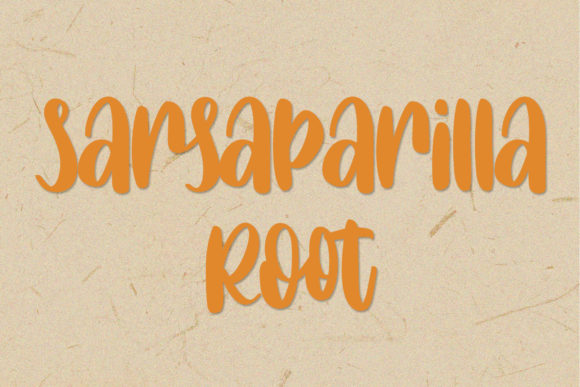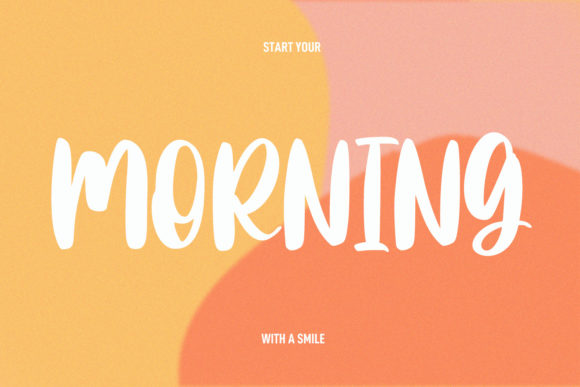
Portuis Ginger Script Font
db-ku.com - Script & Handwritten -- Portuis Ginger is a fancy handwritten script font featuring bold contrast strokes, fun characters with a bit of ligature, and alternates to give you extra creative work. This font is good for logo design, Social media, Movie Titles, Book Titles, short text, even long text. It also works well for your secondary text together with sans or serif.